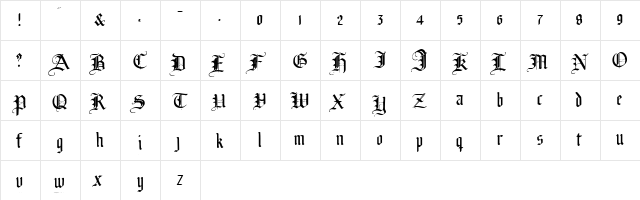
Broken Planewing Regular
Design Context for Broken Planewing Typeface
Broken Planewing is a composed and adaptable typeface that performs quietly and consistently across a wide range of design contexts.